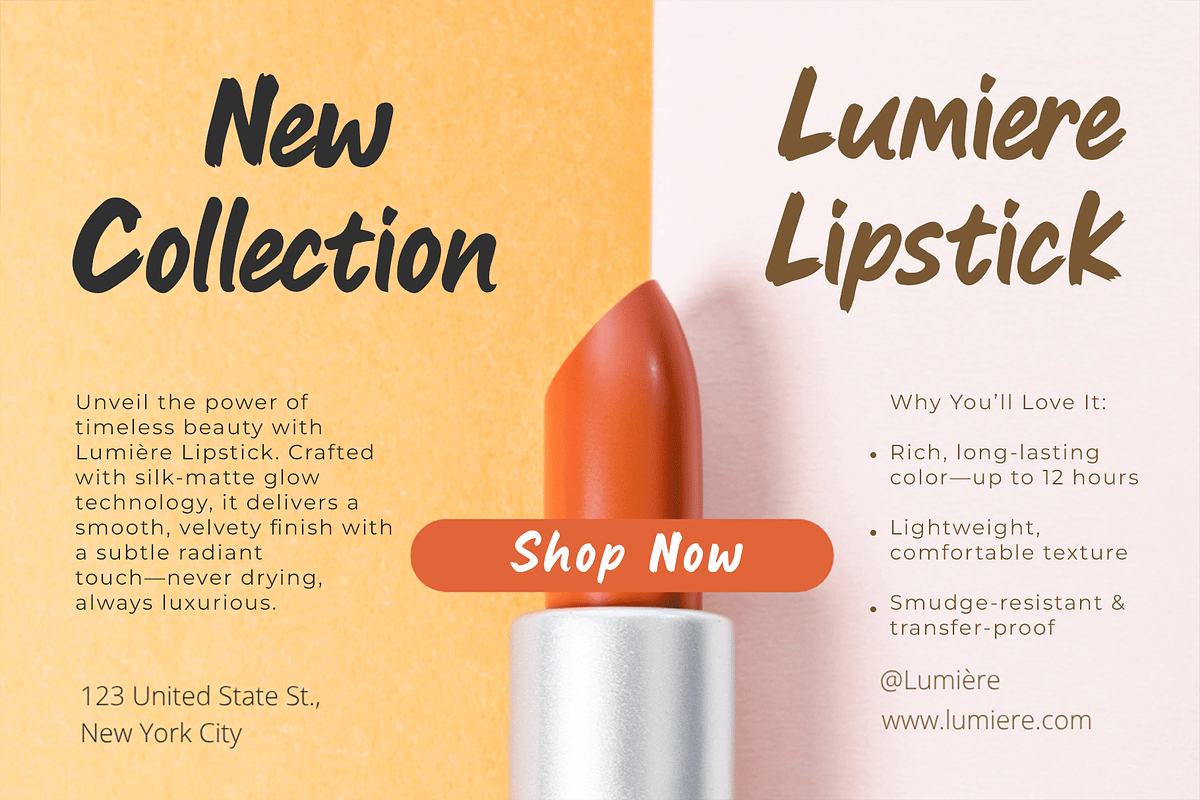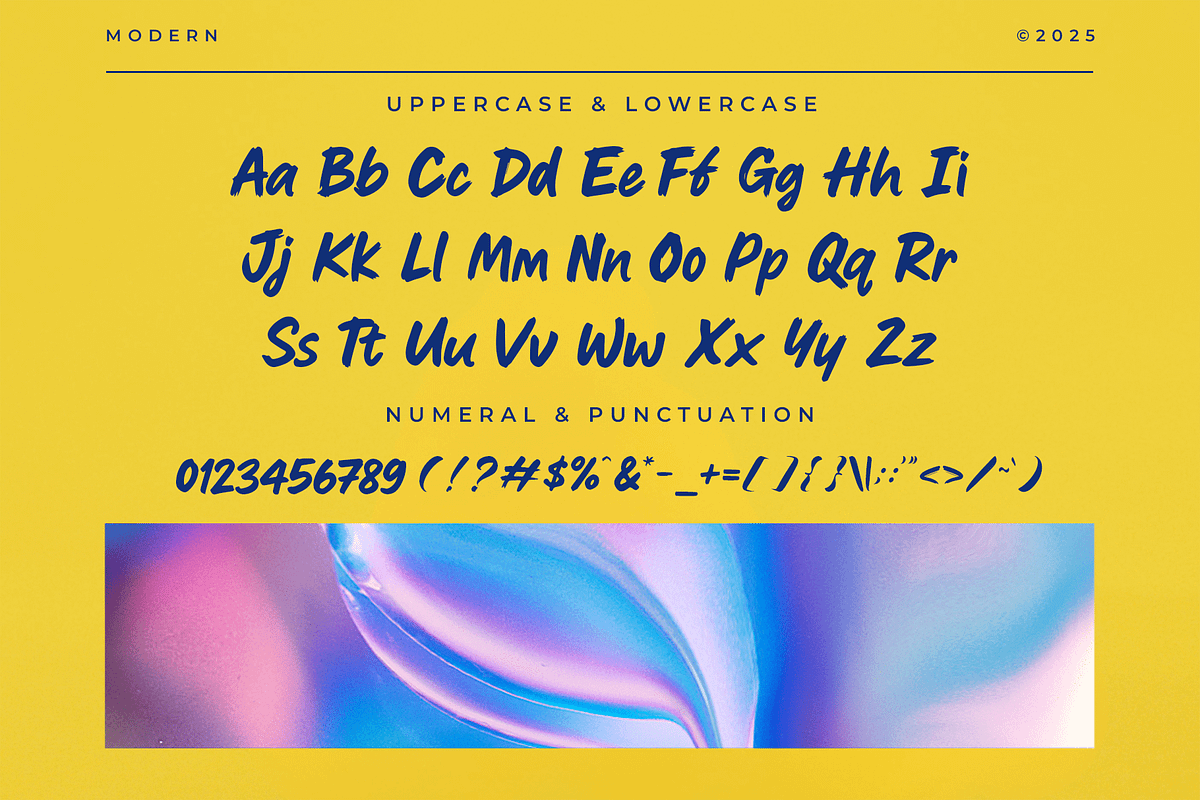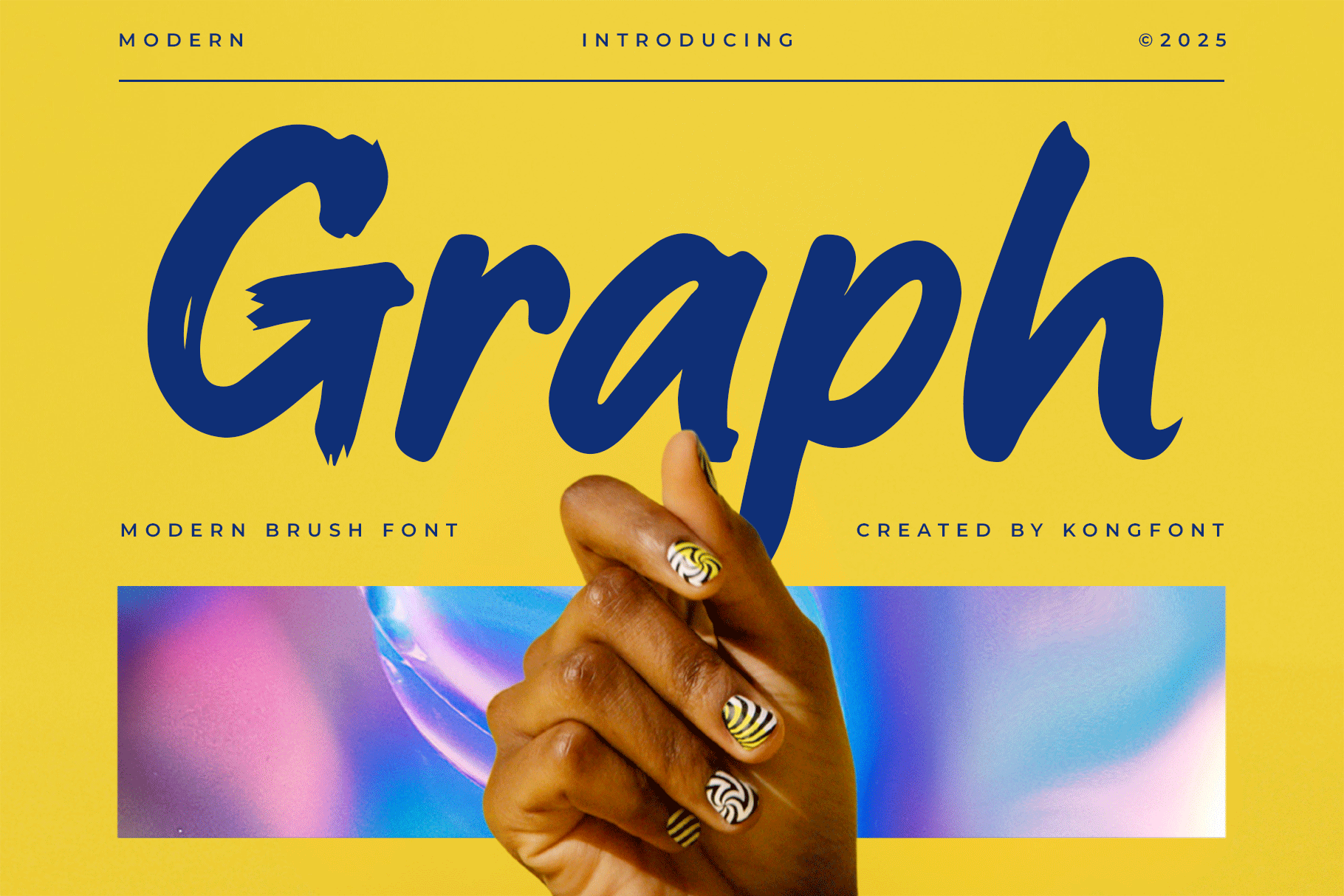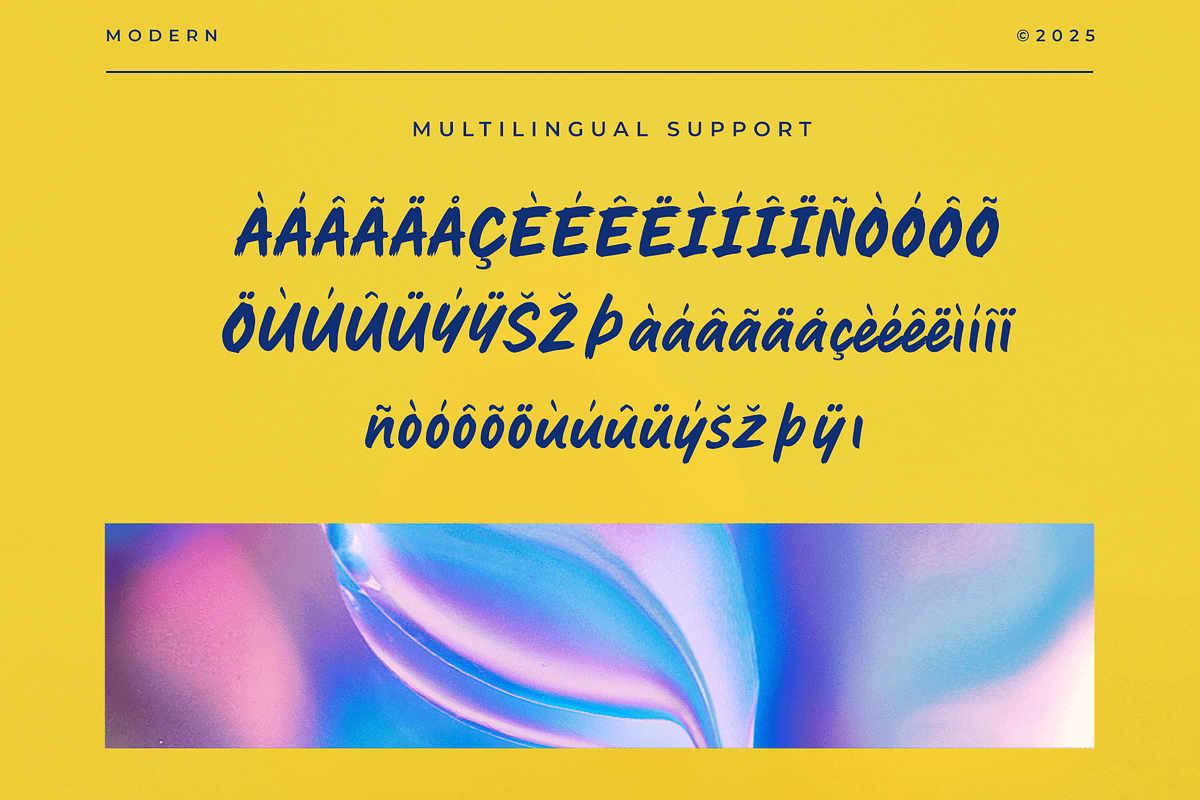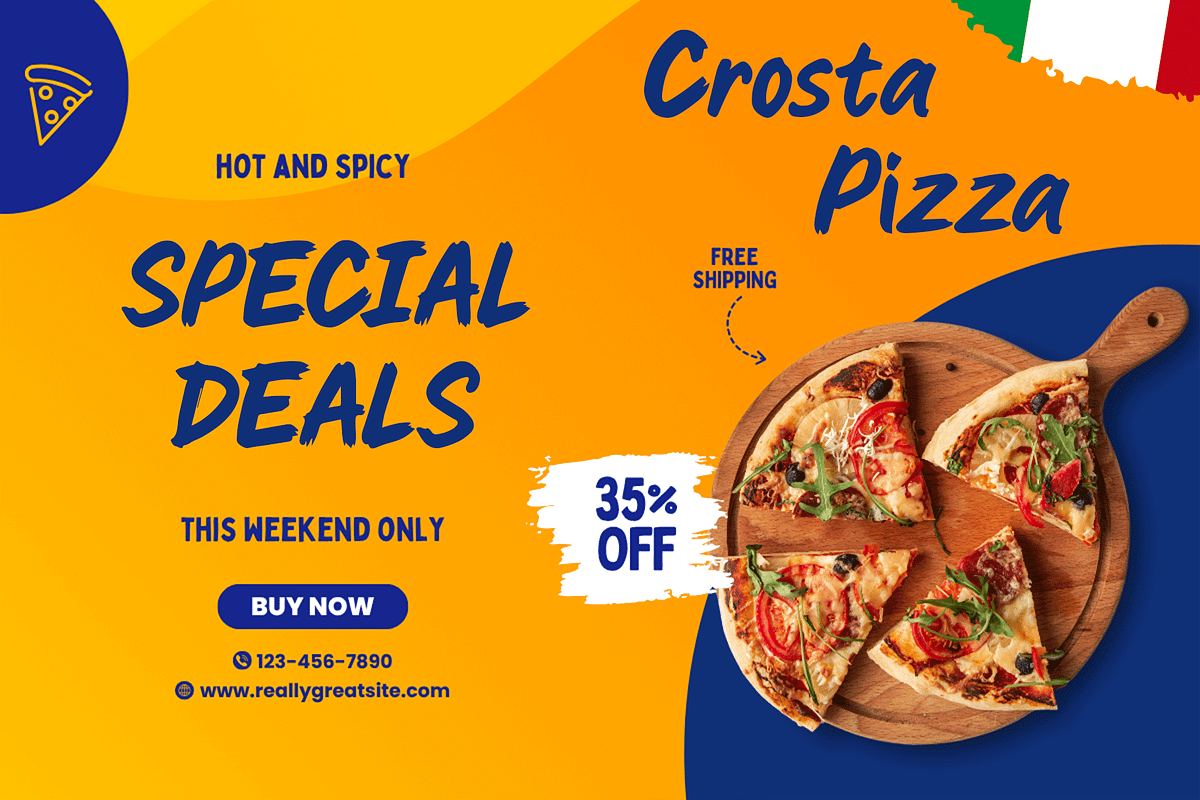
Graph – Modern Brush Typeface
Graph is a modern brush font that blends the raw energy of hand-painted strokes with clean, contemporary design. Its textured letterforms capture a sense of movement and personality, making it ideal for creative projects that demand authenticity and bold style.
Perfect for posters, streetwear branding, packaging, album covers, or any design that needs a strong, urban aesthetic, Graph delivers a handcrafted feel with modern polish. Each letter is carefully brushed to ensure natural flow and visual impact, giving your work an edgy, artistic vibe.
Graph includes uppercase and lowercase letters, numbers, punctuation, and multilingual support—ready to elevate your visual storytelling with character and confidence.